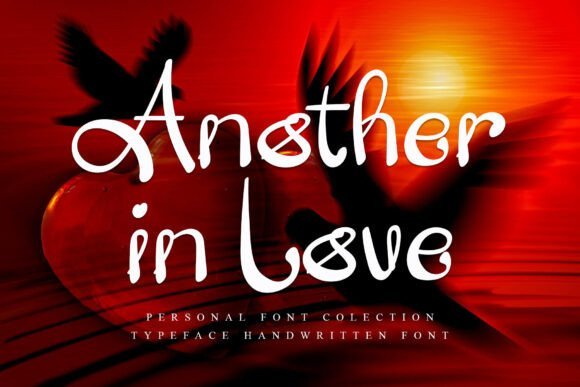
Enter Anotherin Love Font, a beautiful and elegant typeface designed to elevate your work. This meticulously crafted font is perfect for weddings, birthdays, and all sorts of celebrations, as well as school assignments and other important events. With its professional hand touch and extensive glyph support, Anotherin Love Font is a valuable addition to any designer’s toolkit.
Anotherin Love Font Key Features
- Unique Characteristics: The Anotherin Love Font features a unique, hand-drawn design with a mix of elegant and playful elements, making it perfect for creating eye-catching designs.
Designer Review: Anotherin Love Font
Overall, I think the “Anotherin Love Font” is a nice addition to any designer’s toolkit, but it has its limitations. Here are my thoughts:
- Cursive script style: The font has a beautiful, flowing script style that’s perfect for titles and headings.
- Legibility: Despite its script style, the font is surprisingly legible, even at smaller sizes.
- Expressive feel: The font has a lot of character and personality, making it a great choice for creative projects.
- Limited versatility: The font is a bit too ornate for body text, and its script style can make it difficult to read at larger sizes.
- Lack of bold weights: The font only comes in a few weights, which can limit its use in certain design applications.
In terms of overall impression, I think the “Anotherin Love Font” is a solid choice for designers looking for a unique, expressive script style. However, its limitations may make it less suitable for certain projects. I would recommend it for titles, headings, and creative projects where a more decorative font is desired.
Some common use cases for the Anotherin Love Font include:
- Valentine’s Day and romantic-themed designs.
- Emotive and expressive typography for social media graphics and blog posts.
Remember to experiment with different font sizes, colors, and styles to get the most out of the Anotherin Love Font.
Alternatives to Anotherin Love Font for Designers
The Great Vibes Font is a beautiful, elegant script font that is perfect for creating a romantic and whimsical atmosphere. It’s ideal for use in wedding invitations, greeting cards, and other personal projects where a touch of sophistication is needed.
Compared to Anotherin Love Font, Great Vibes Font has a more refined and classic feel. While Anotherin Love Font has a more casual and playful vibe, Great Vibes Font is better suited for formal and elegant designs.
The Carolyna Pro Font is a modern and sophisticated script font that is perfect for use in luxury branding, advertising, and editorial design. It’s ideal for creating a sense of high-end style and sophistication.
Compared to Anotherin Love Font, Carolyna Pro Font has a more modern and edgy feel. While Anotherin Love Font is more playful and casual, Carolyna Pro Font is better suited for high-end and premium designs.